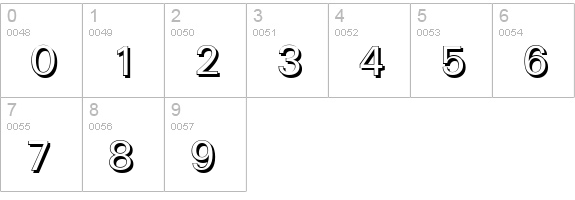
UltimateShadow-Regular Font Details
UltimateShadow-Regular is the standard, neutral variant in the UltimateShadow typeface family \xE2\x80\x94 well suited to general body text, paragraphs, and standard typographic work.
UltimateShadow-Regular font is a striking and versatile typeface that exudes modernity and sophistication. With clean lines and sharp edges, this font is perfect for creating eye-catching designs that demand attention. Its unique shadow effect adds depth and dimension, making it stand out from the crowd. Best of all, UltimateShadow-Regular is completely free to download at FontsMarket.com. Whether you're designing a logo, poster, or website, this font is sure to make a bold statement. Don't miss out on the opportunity to elevate your projects with the sleek and stylish UltimateShadow-Regular font. Download it now and unleash your creativity!